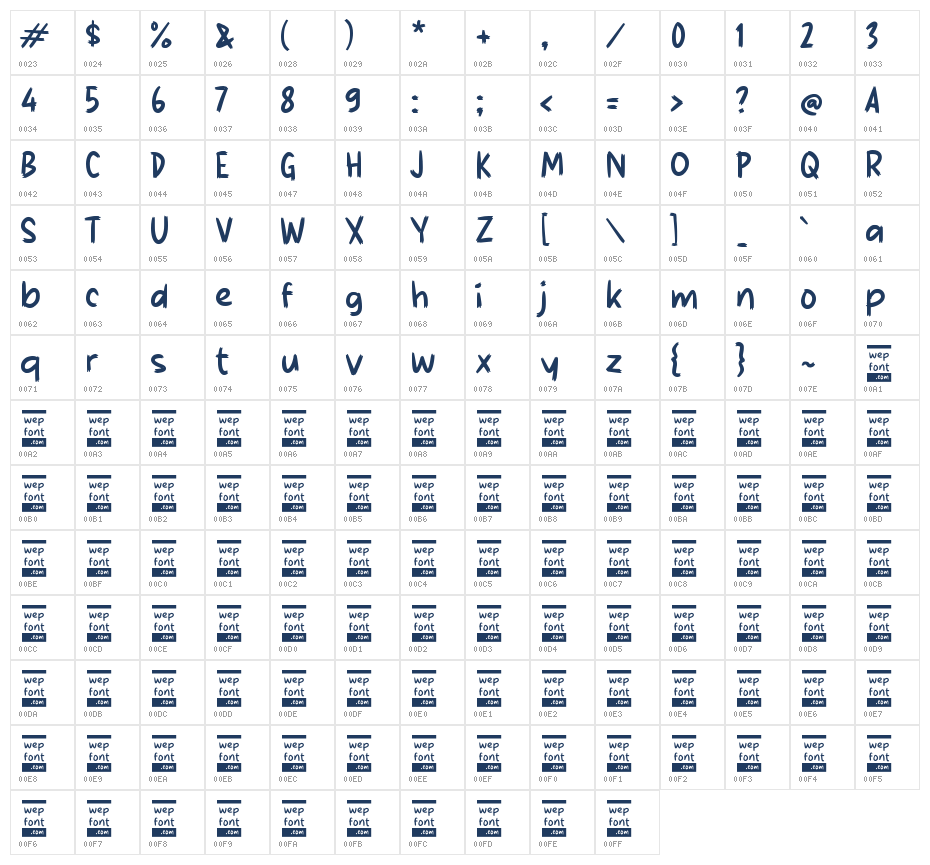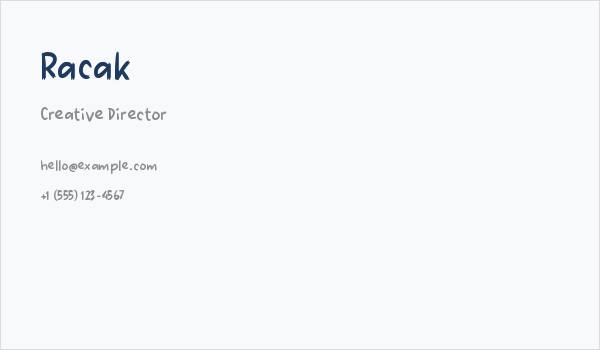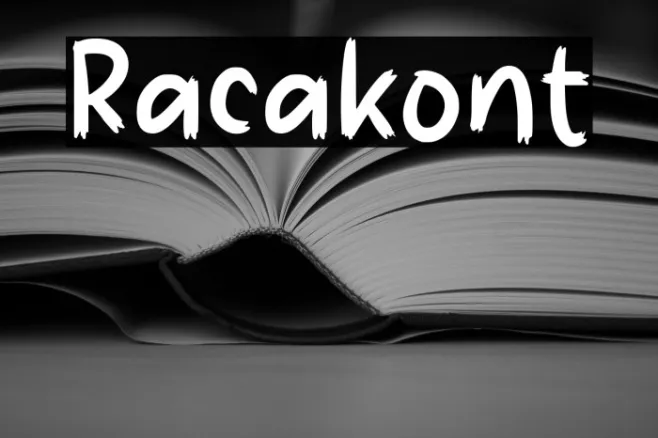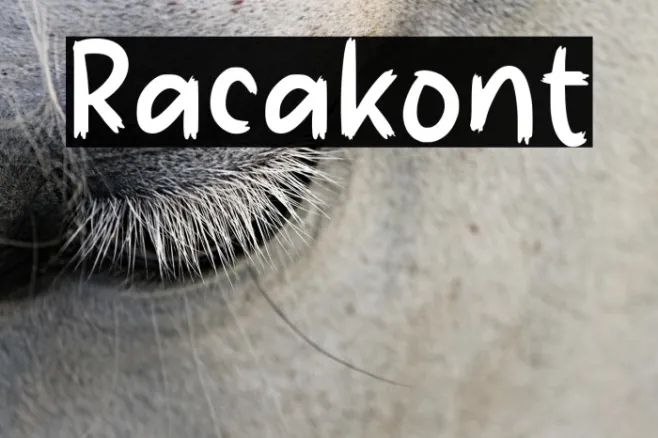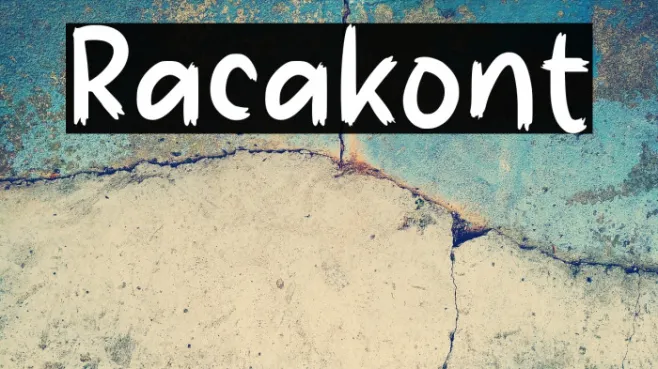
Racak Font
Racak Description
A playful, handwritten style font with a casual and energetic appearance, featuring irregular strokes and a slightly rough texture.
| Overall Style | Casual, Playful, Informal |
| Use Case | Headlines, Body text, Logos, Creative projects |